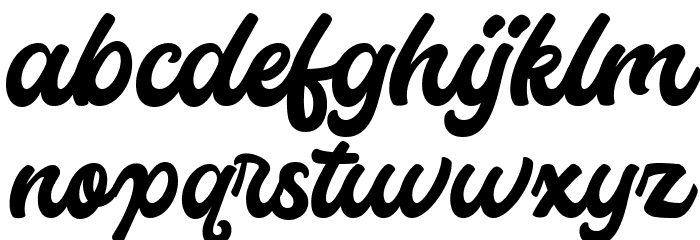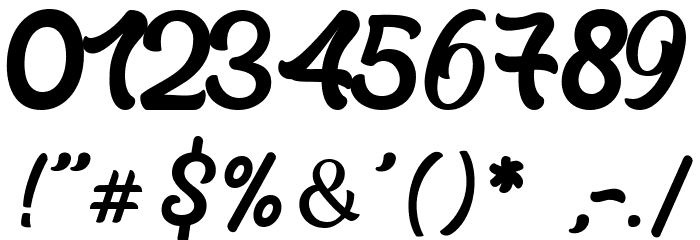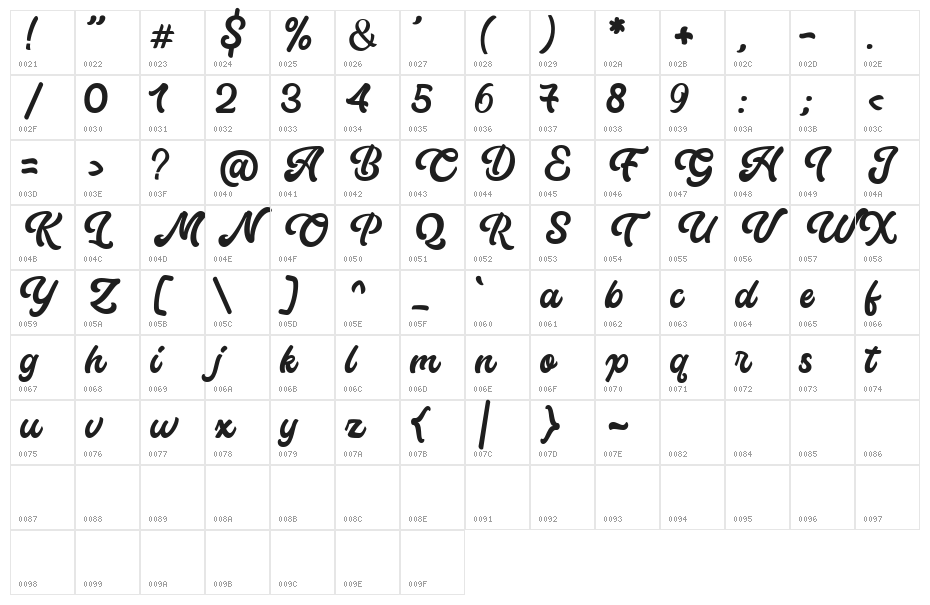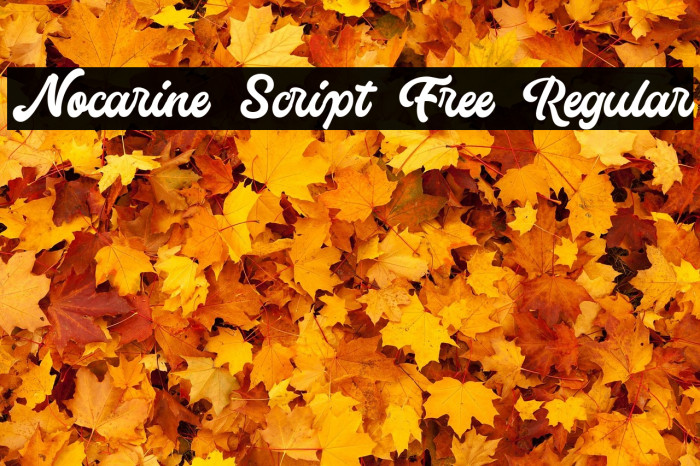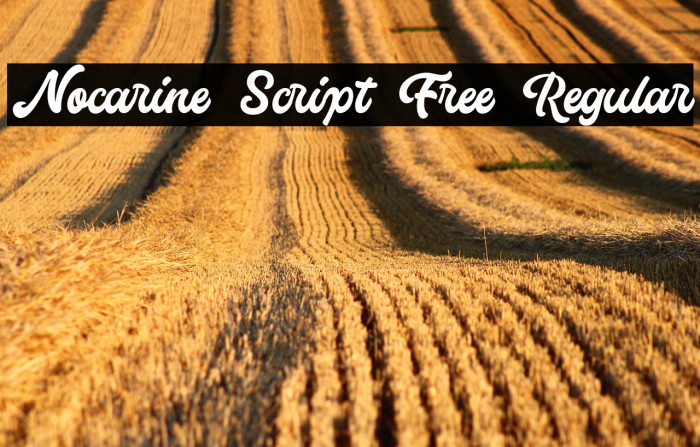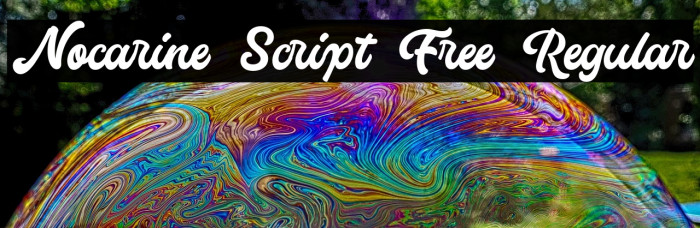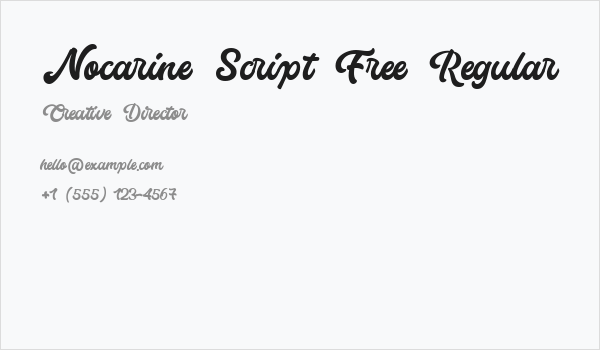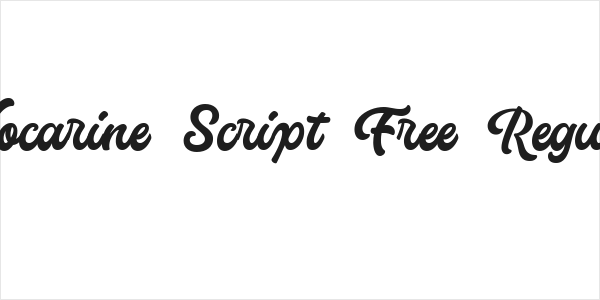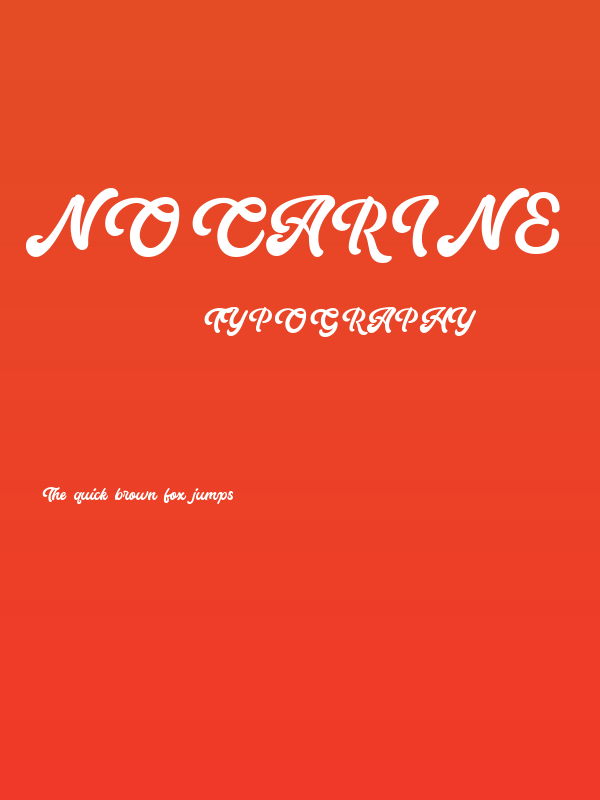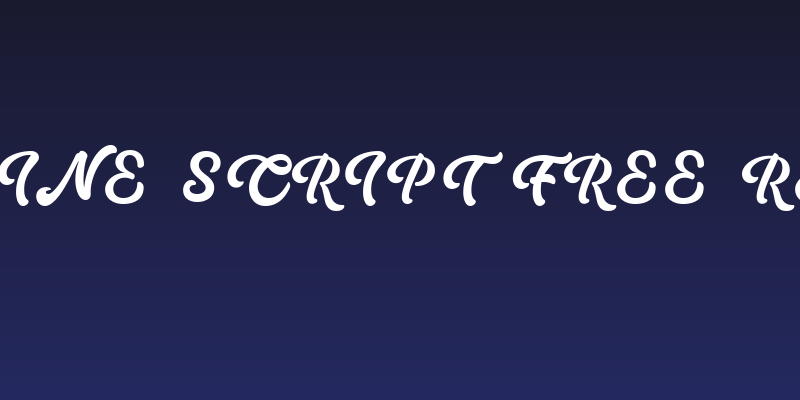
Nocarine Script Free Regular Font
This font features a flowing, cursive style that exudes elegance and sophistication. The characters are connected, creating a seamless and fluid appearance. The uppercase letters are ornate, with intricate loops and swirls, while the lowercase letters maintain a consistent, smooth flow. The numerals are bold and rounded, complementing the overall script style. Special characters are designed to match the decorative nature of the font, making it suitable for artistic and creative projects. The font's bold weight and medium contrast enhance its readability while maintaining its decorative appeal.
A decorative script font with elegant, flowing characters and bold weight.
- Font: Nocarine Script Free Regular
- Proposed Projects: Ideal for wedding invitations, greeting cards, branding, and logo design.
- Category: Script
- Use Case: Logos, Invitations, Decorative text